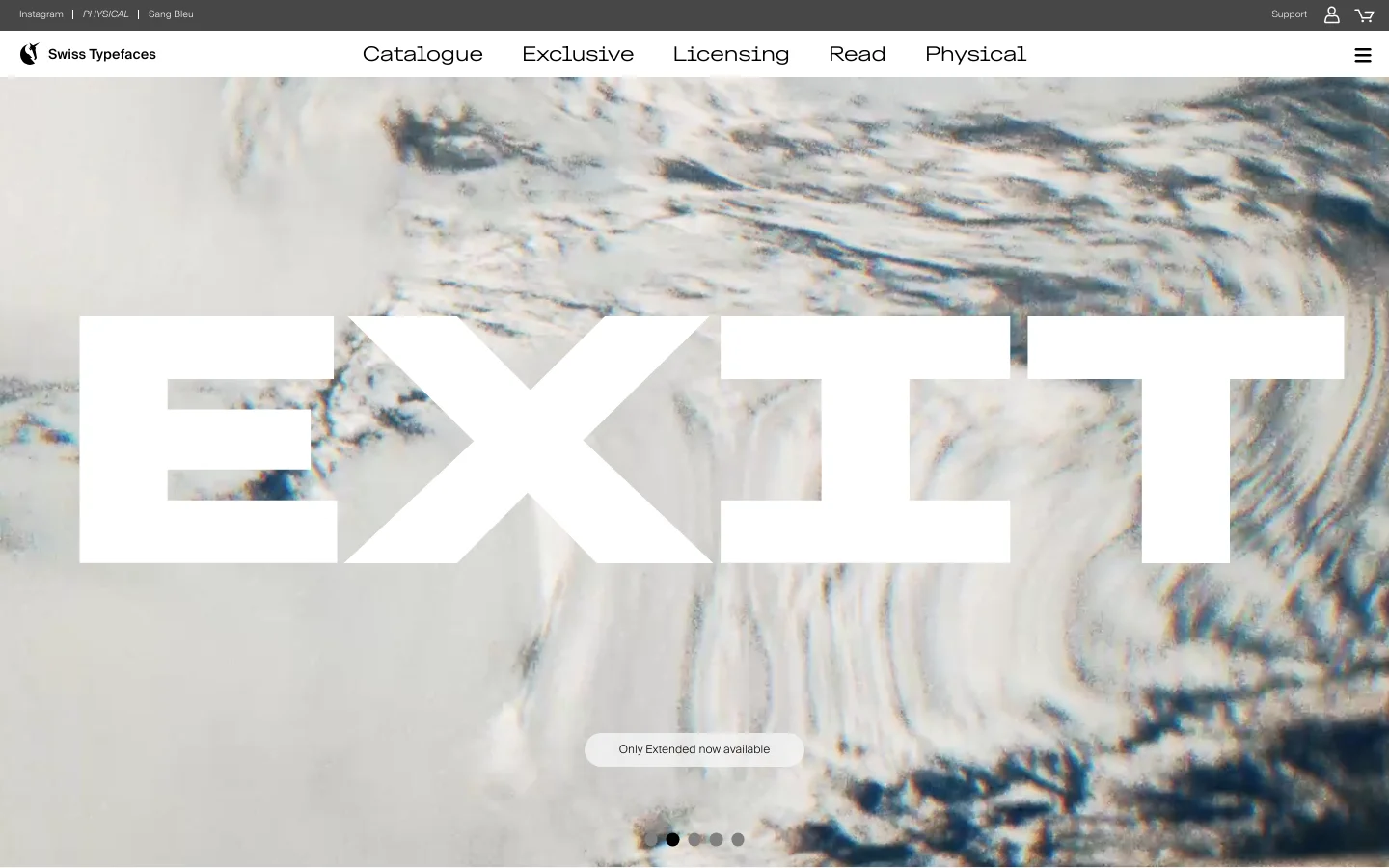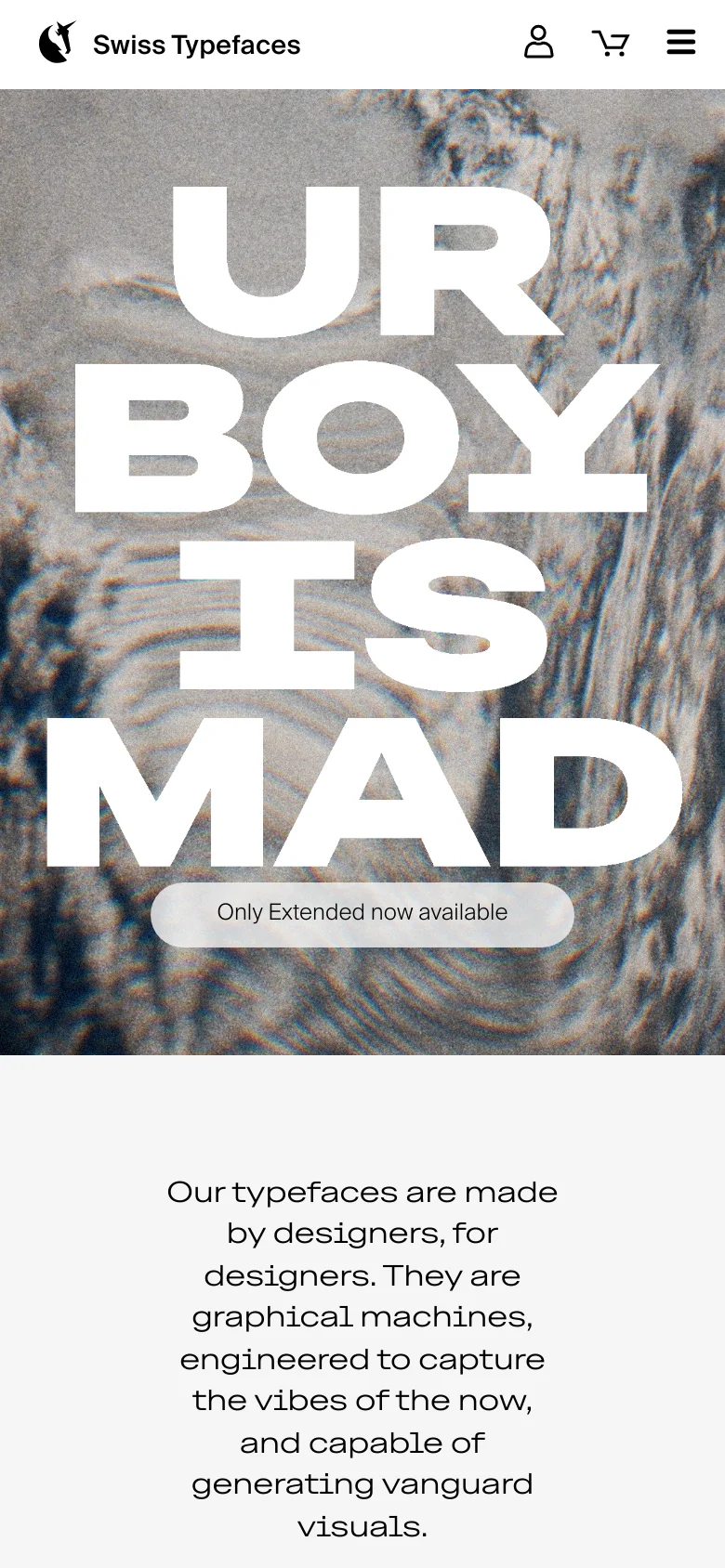
The desktop homepage features a large, bold white headline 'EXIT' overlaid on a high-contrast background of swirling clouds and textures. A minimalist navigation bar at the top includes links for Catalogue, Exclusive, Licensing, Read, and Physical, alongside a support link and user icon. A small pill-shaped button at the bottom center reads 'Only Extended now available'.The mobile version presents a vertically stacked layout with the large, bold white text 'UR BOY IS MAD' dominating the center over a textured, cloudy background. The navigation is condensed into a hamburger menu icon in the top right, and the brand name 'Swiss Typefaces' is positioned next to a logo in the top left. A pill-shaped button reading 'Only Extended now available' is centered near the bottom.
Swiss Typefaces is a premium digital foundry dedicated to creating high-performance, designer-centric typography. The website serves as a high-impact showcase and storefront for its font catalogue, positioning its products not merely as text, but as "graphical machines" engineered to drive vanguard visual identities. It caters to a sophisticated audience of graphic designers, art directors, and creative agencies seeking cutting-edge typefaces that capture contemporary cultural aesthetics. The visual identity is unapologetically typographic and avant-garde, utilizing massive, high-contrast scale to demonstrate the expressive power of its products. By layering bold, oversized lettering over atmospheric, high-resolution textures and cinematic imagery, the design creates a sense of depth and modern luxury. The minimalist navigation and spacious layout ensure that the type remains the undisputed hero, reflecting a brand ethos of precision, strength, and contemporary relevance.